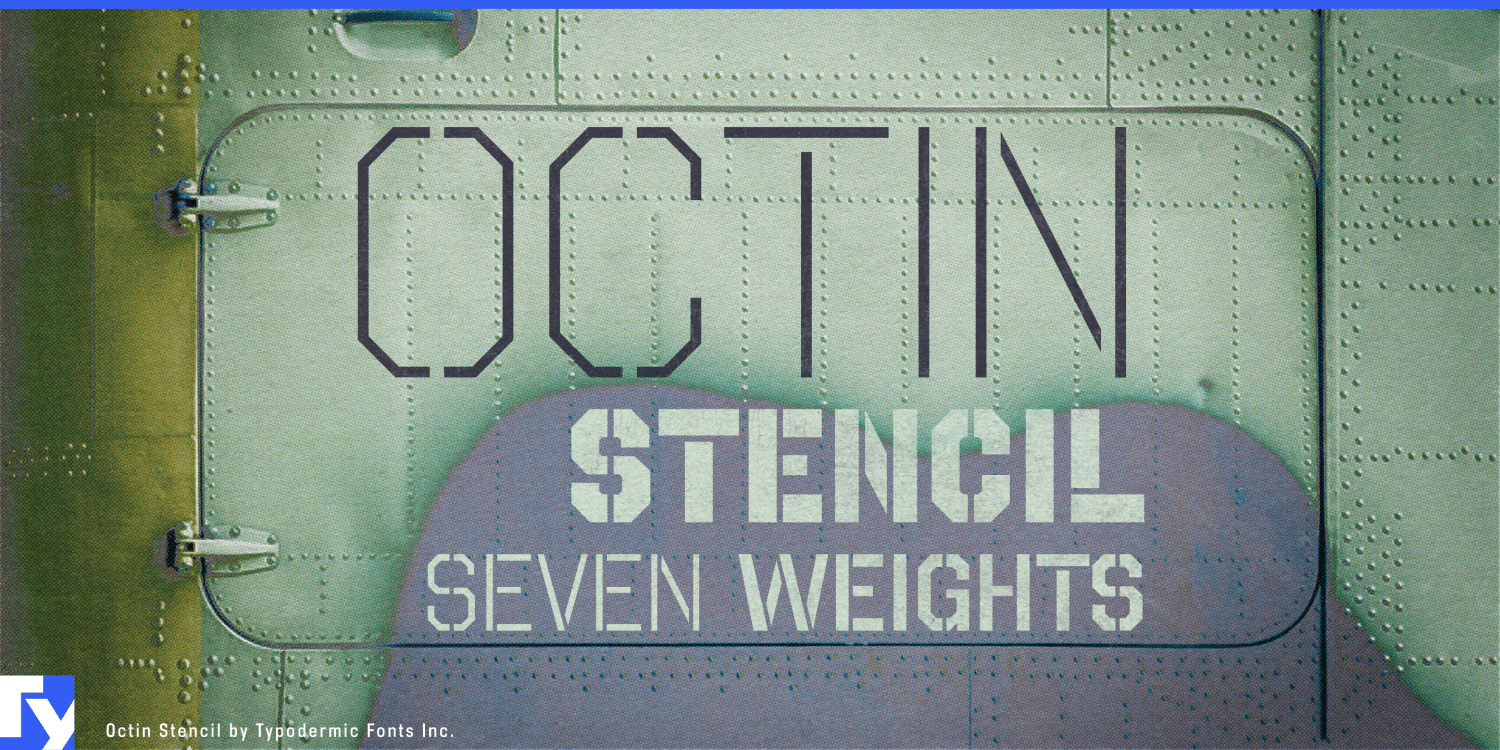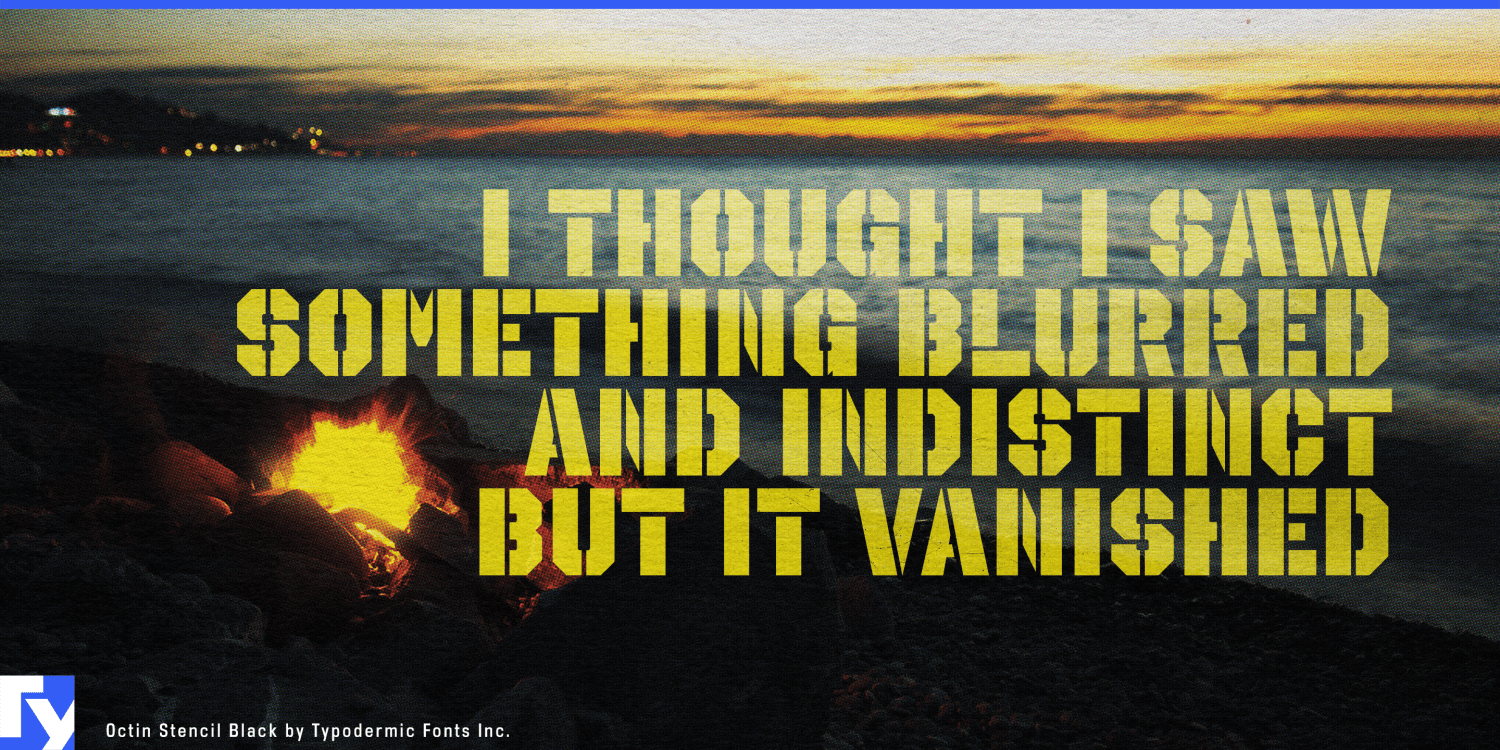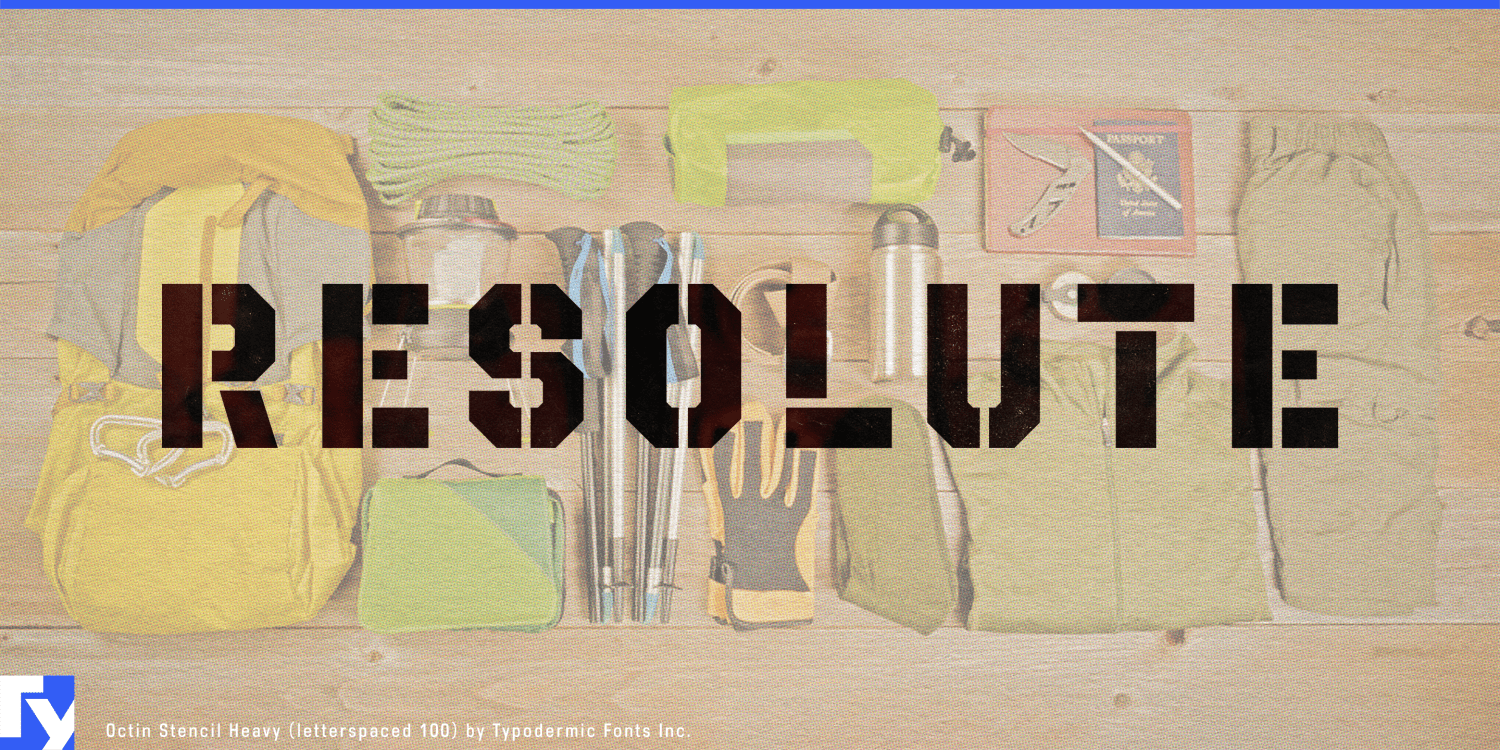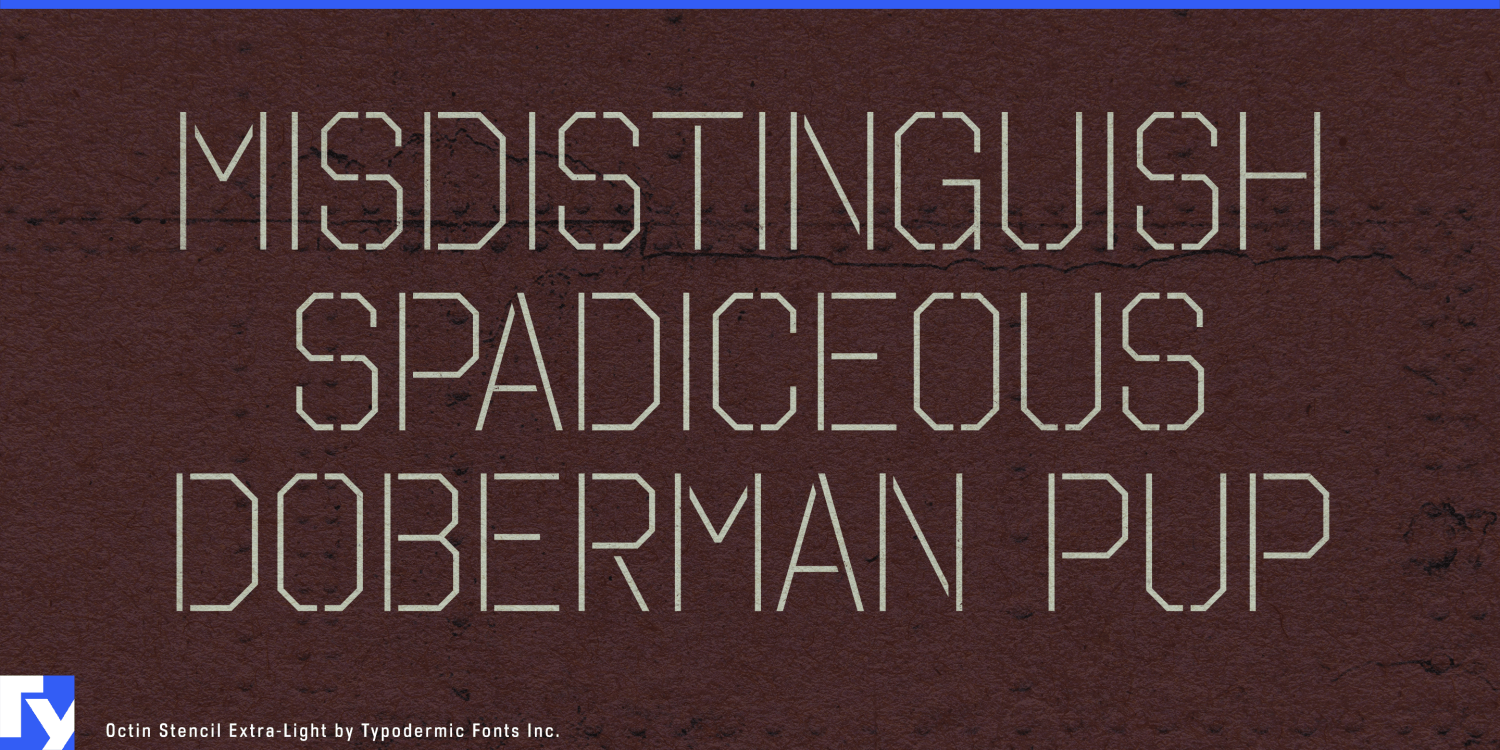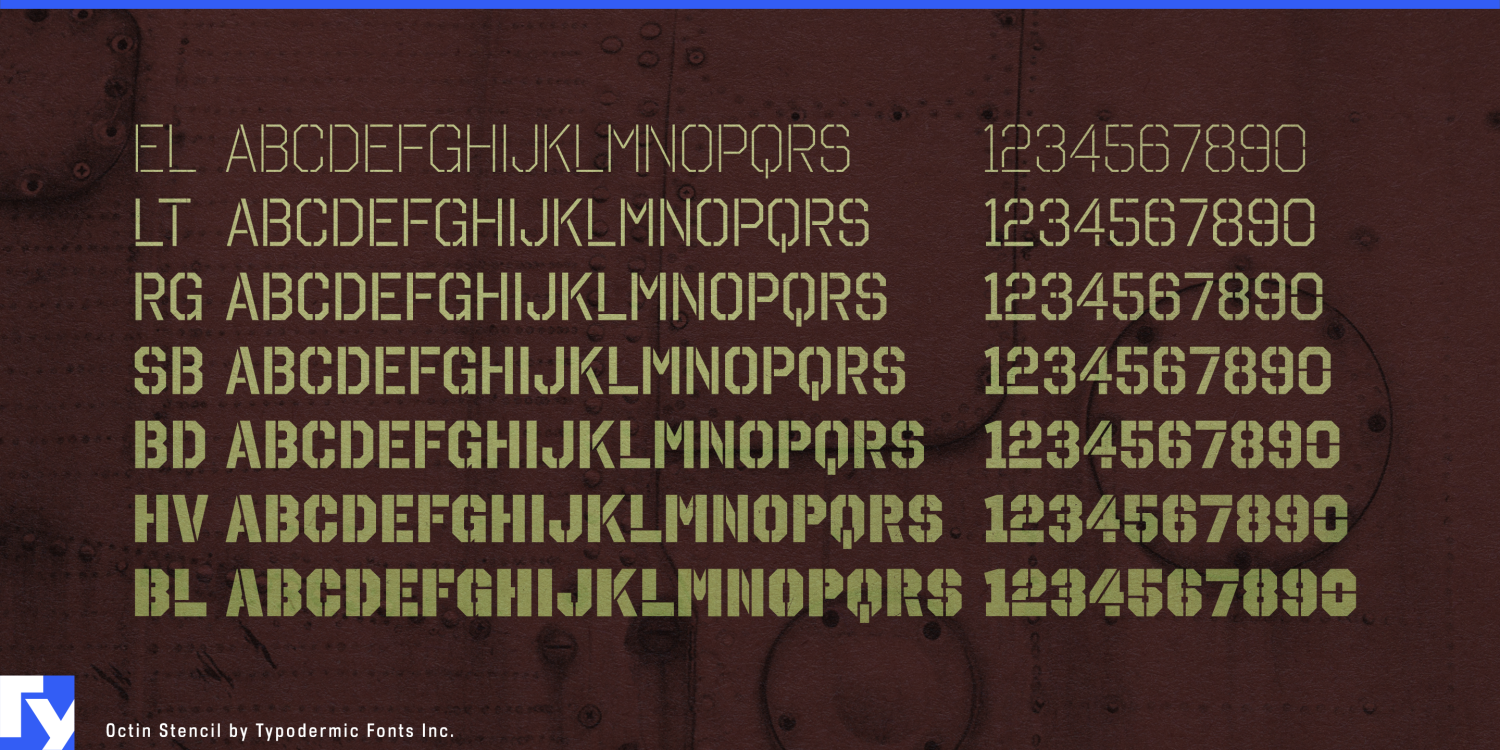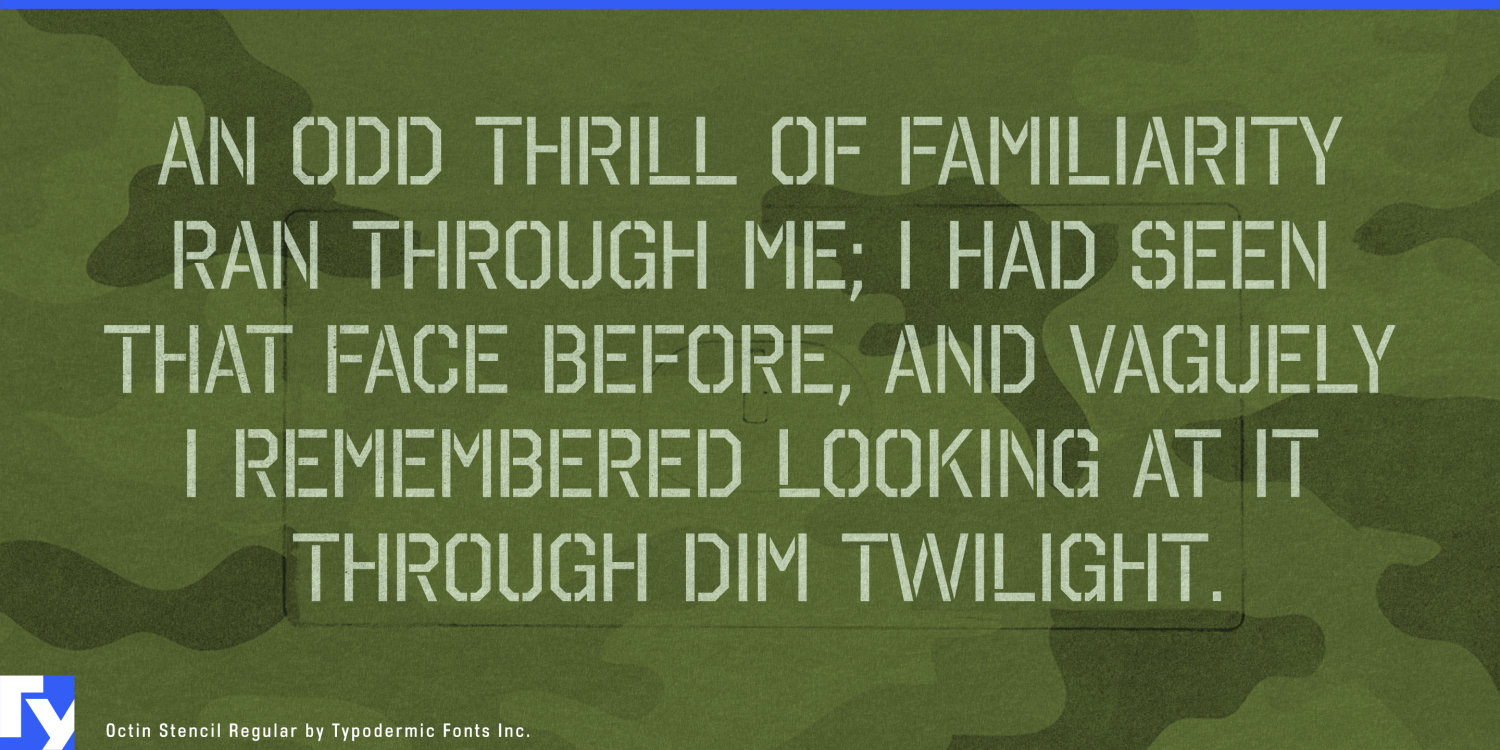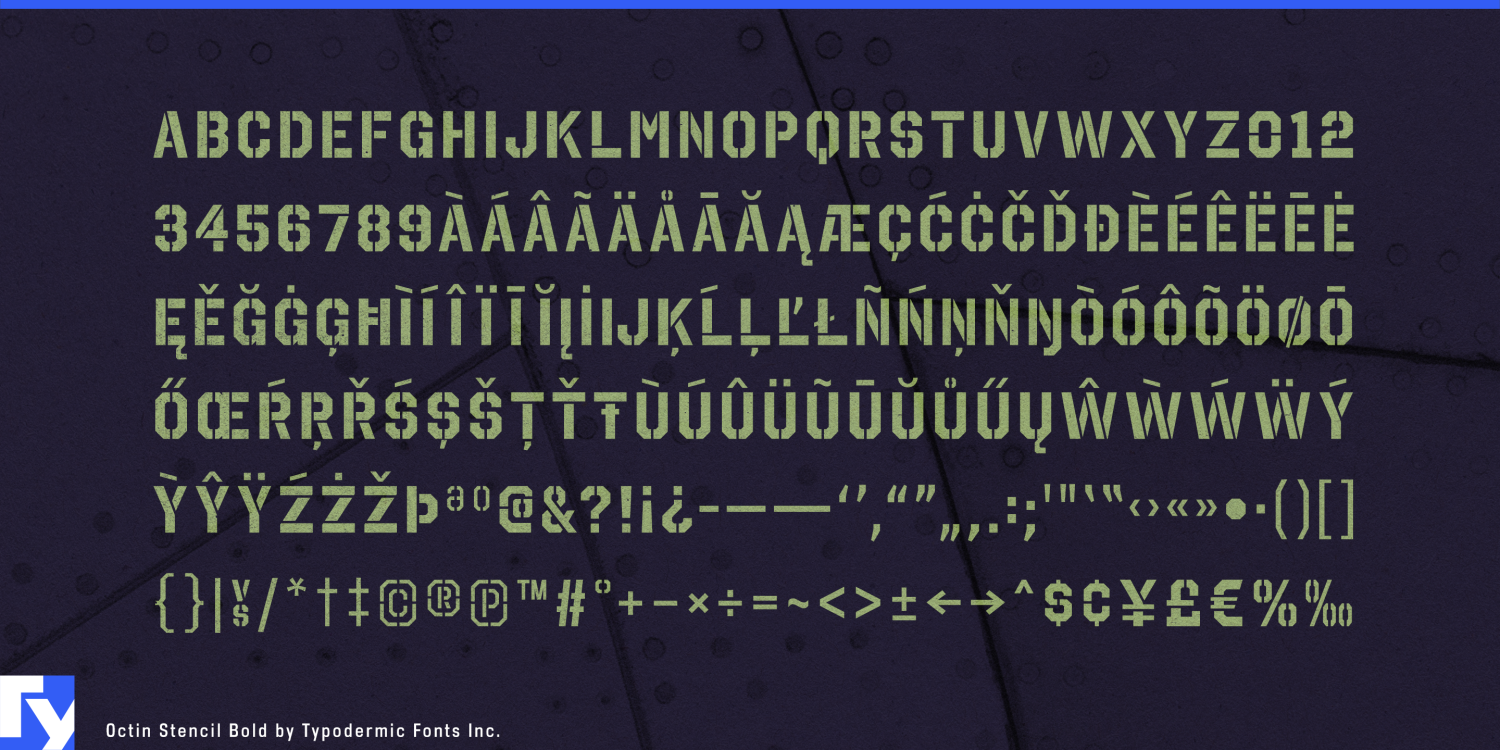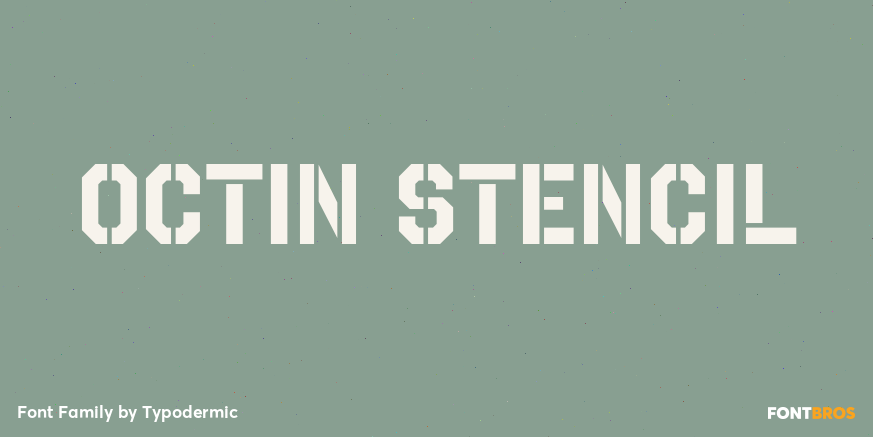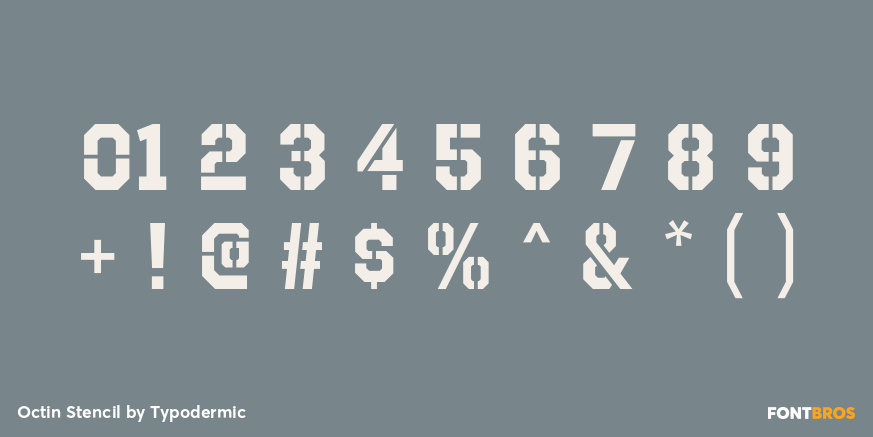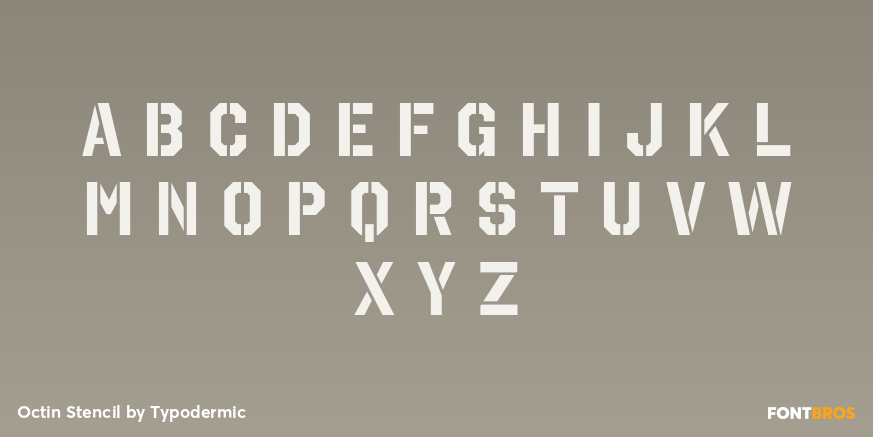
Octin Stencil
A heavy stencil can make one headline look tactical. The harder problem is keeping that operational language intact when the project also needs unit names, mission headings, categories, sector labels and secondary display text. Octin Stencil turns the familiar equipment-marking vocabulary into a complete seven-weight system.
The all-caps family runs from Extra-Light through Black. Its octagonal sans-serif construction remains consistent across the range, but the changing weights alter the tone dramatically. Black can carry an operation name or campaign title; Bold and Regular can organize units, objectives and product families; the lightest styles reduce the stencil breaks to a finer, almost diagrammatic pattern.
Tactical and military simulation games are a natural fit. Squad-based games, strategy titles and near-future combat settings need operation names, mission headings, unit designations, objective markers, loadout categories, map sectors and expansion graphics. Octin Stencil can keep those elements inside one operational vocabulary while using weight to establish hierarchy.
Defense-industry exhibitions and product campaigns present a similar problem. Manufacturers of vehicles, sensors, communications systems, autonomous platforms and training technology need system names, capability headings, trade-show walls and demonstration graphics that borrow the visual language of field equipment without pretending to be actual military markings.
Emergency-response exercises and preparedness programs can use the same structure for exercise names, command-zone headings, scenario graphics and temporary displays. Search-and-rescue training, disaster simulations and incident-response conferences often need an operational tone across several levels of information.
Military-history exhibitions, documentary series and archival installations offer another natural territory. Operation names, campaign headings, map titles, equipment categories and section dividers can share a stencil vocabulary while the lighter weights keep historical material from becoming visually overbearing. Field expeditions and research missions can use the family for expedition names, remote-survey campaigns and field-team graphics where the visual system should suggest deployment and operations.
Octin Stencil belongs to a coordinated six-family series. Octin College handles non-athletic academic identity; Octin Sports carries the team voice; Octin Prison represents confinement and institutional control; Octin Vintage supplies worn heritage sports texture; and Octin Spraypaint delivers freshly applied, disruptive graphics. Octin Stencil is the branch for operations: tactical display typography with enough range to keep working after the first bold headline.